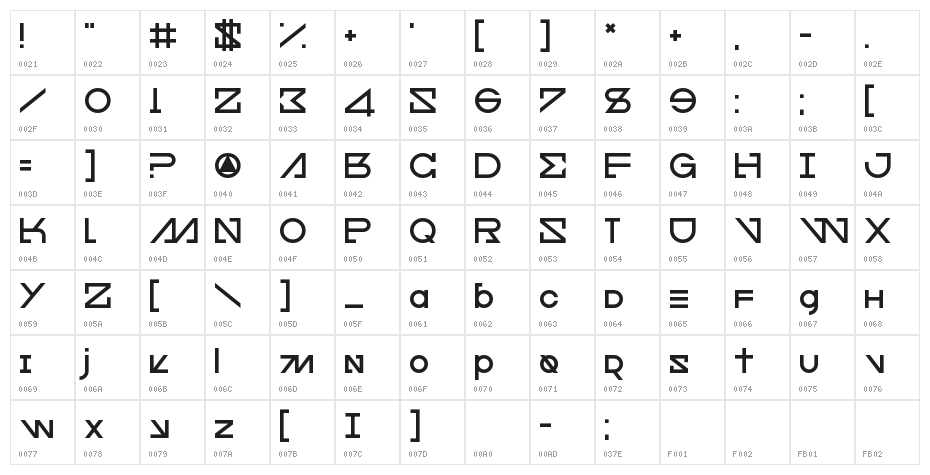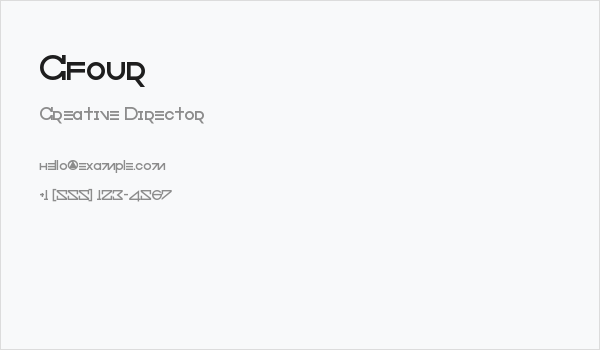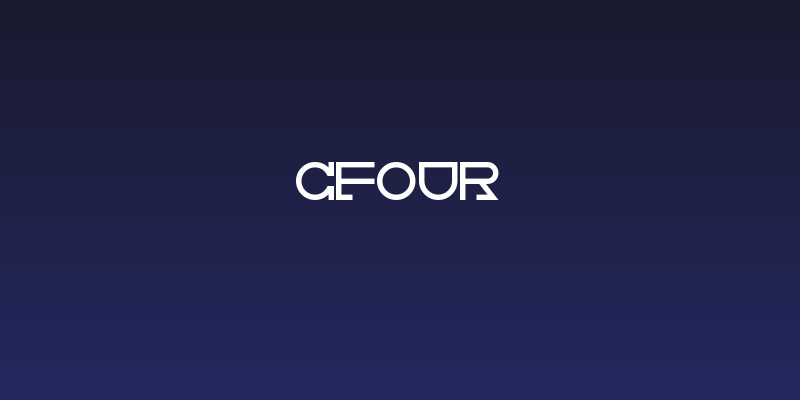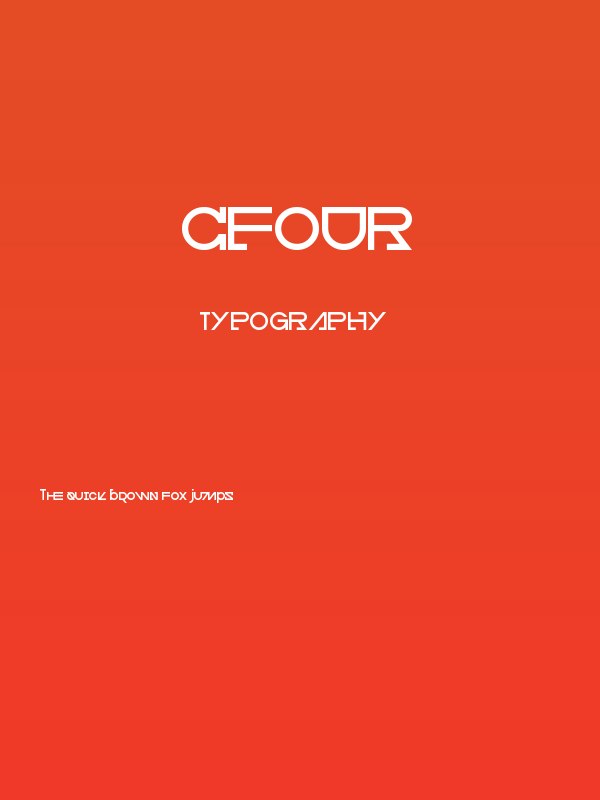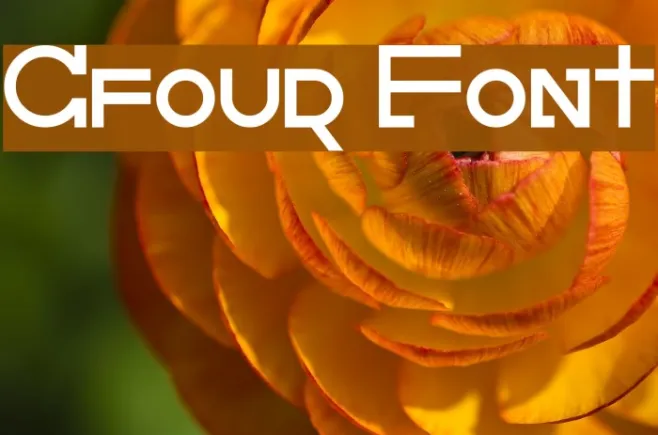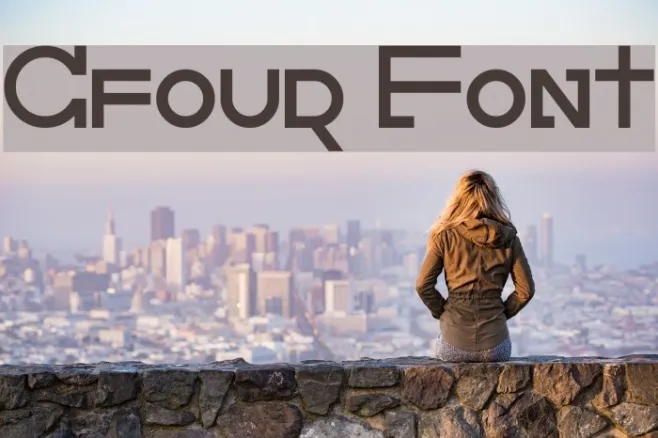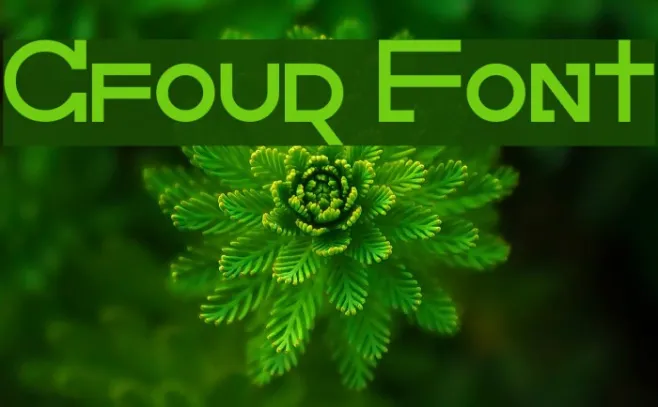
Cfour Font
Cfour Description
This font features a bold, geometric design with a futuristic and angular aesthetic. The characters are constructed with sharp lines and distinct angles, creating a sense of movement and modernity. The uppercase and lowercase letters maintain a consistent style, with some characters like 'A', 'E', and 'R' having unique, stylized forms. The numbers follow the same geometric pattern, ensuring uniformity across the font. Special characters are also designed with the same angular approach, making them fit seamlessly with the rest of the typeface. This font's striking appearance makes it ideal for projects that require a modern and edgy look.